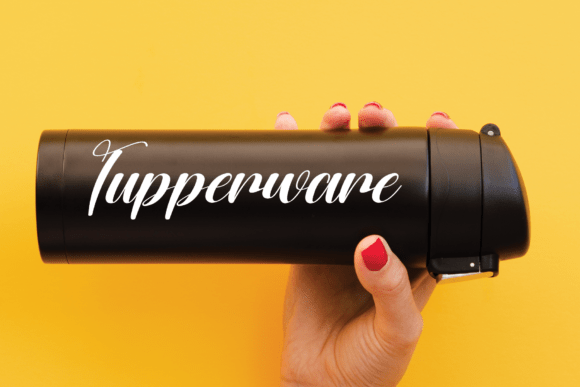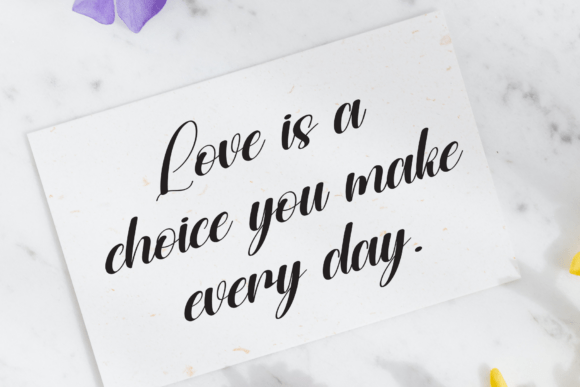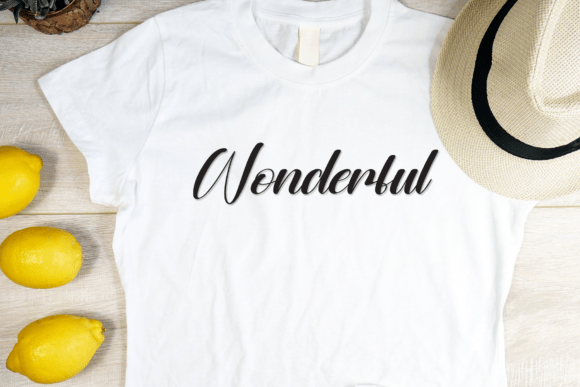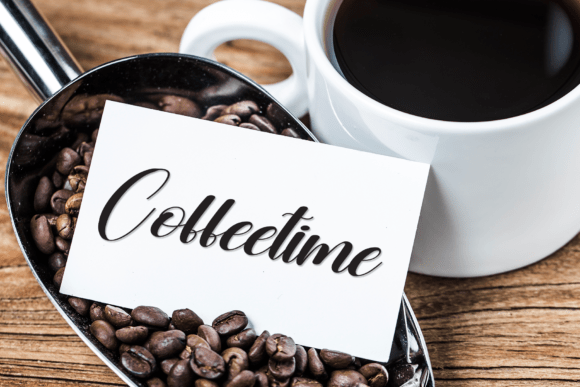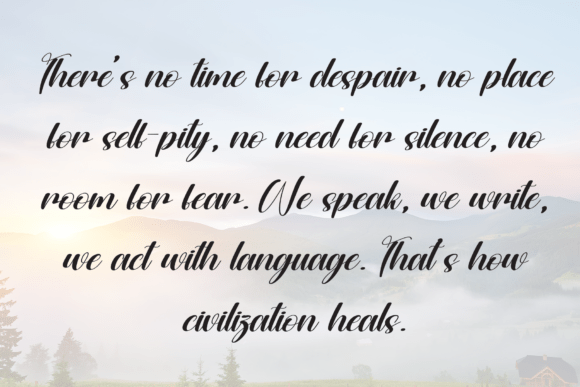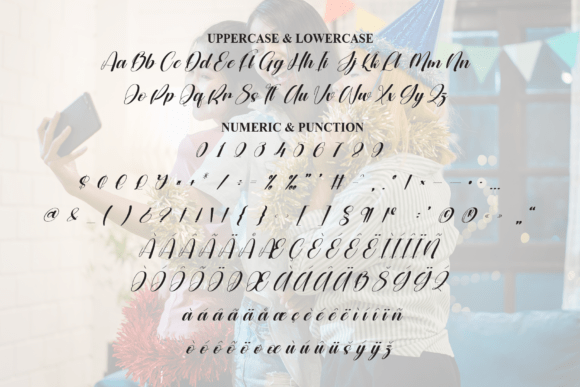
Unlock the Magic of Celebration Festival Font
Have you ever sat down with a blank page, a blank mind, and a vision of creating something truly special? For designers, those moments are a treasure trove of inspiration, waiting to be tapped into. And sometimes, all it takes is the right tool to bring our ideas to life.
Enter Celebration Festival Font, a delightful handwritten display font that’s as charming as it is elegant. This font is designed to add a touch of whimsy and joy to your designs, making it perfect for wedding invitations, greeting cards, and any project that calls for a playful essence. Whether you’re a seasoned designer or just starting out, Celebration Festival Font is an invaluable addition to your toolkit, allowing you to infuse your creations with a light-hearted elegance that’s sure to captivate.
Celebration Festival Font Key Features
- Unique Characteristics: The Celebration Festival Font features a unique, hand-drawn design with intricate details and ornate flourishes, adding a touch of elegance and sophistication to any design.
Celebration Festival Font Review
The Celebration Festival Font is a lively, vibrant font that truly shines ✨. Its playful, cursive design is perfect for adding a touch of whimsy to party invitations, social media graphics, and other celebratory materials. The font’s varying line weights and flourishes add visual interest and create a sense of movement, making it ideal for dynamic, eye-catching designs.
Some of the font’s strengths include:
- Highly customizable – The font offers a range of stylistic sets and font features that allow designers to tailor the look to suit their specific needs.
- Excellent legibility – Even at larger sizes, the font remains clear and easy to read.
However, there are some limitations to consider ⚠️:
- Not suitable for formal use – The font’s playful, cursive design may be too informal for corporate or professional applications.
- May be too busy for some designs – The font’s intricate details and flourishes may be overwhelming in certain contexts.
Overall, I think the Celebration Festival Font is a great choice for designers who want to add a touch of fun and energy to their projects. While it may not be suitable for every occasion, it’s a versatile and highly customizable font that can help designers create eye-catching, memorable designs.
The Celebration Festival Font is ideal for:
Creating invitations and event materials.
Designing social media graphics and promotional materials.
Adding a celebratory touch to presentations and documents.
Creating festive and fun designs for holidays and special occasions.